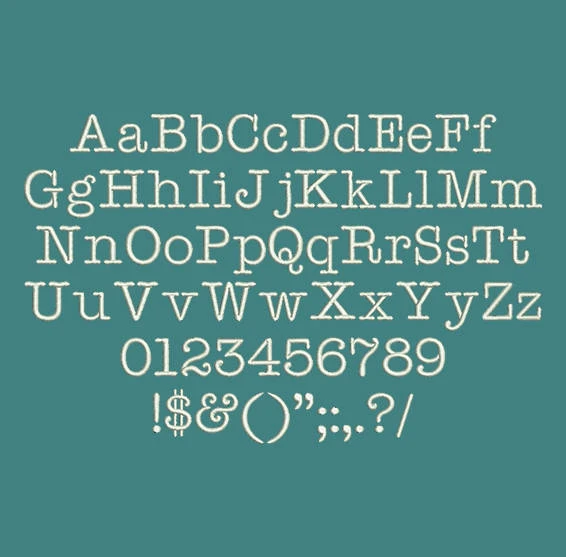
Type It Again! Typewriter Machine Embroidery Font
Title: Typewriter machine embroidery font
This Typewriter font is perfect for personalizing clothes, bags, towels and linens!